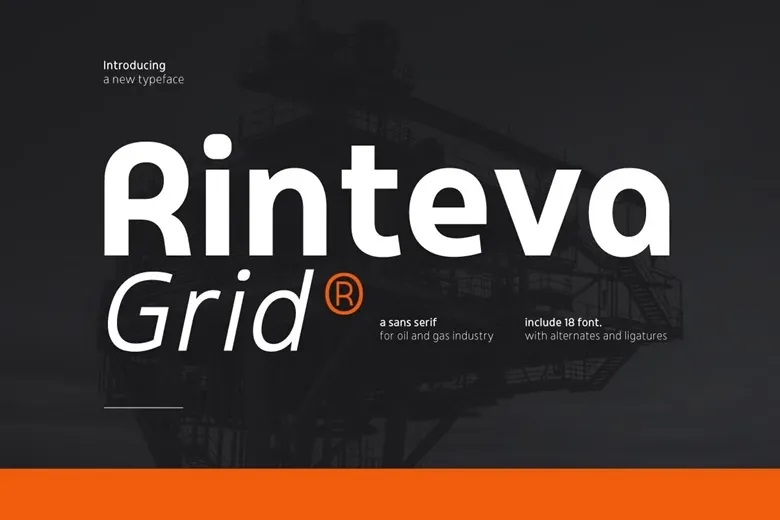
Rinteva Grid Font
Rinteva Grid is a modern sans-serif font designed to give brands a strong, professional, and industrial look. With bold letters, balanced shapes, and a clean style, it works well for energy companies, oil and gas firms, engineering groups, manufacturers, logistics providers, and industrial tech brands.
Rinteva Grid draws inspiration from engineering and heavy industry, demonstrating reliability, strength, and a commitment to quality. It stands out in headlines, branding, websites, annual reports, presentations, packaging, and marketing materials where a bold and confident look is needed.
If you are building a global energy brand or shaping a modern industrial identity, Rinteva Grid offers the professional style you need to build trust, credibility, and lasting brand recognition.
Rinteva Grid Sans Serif Font